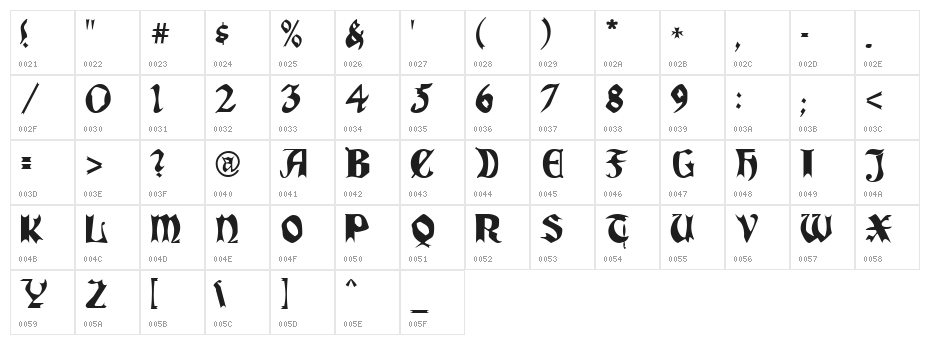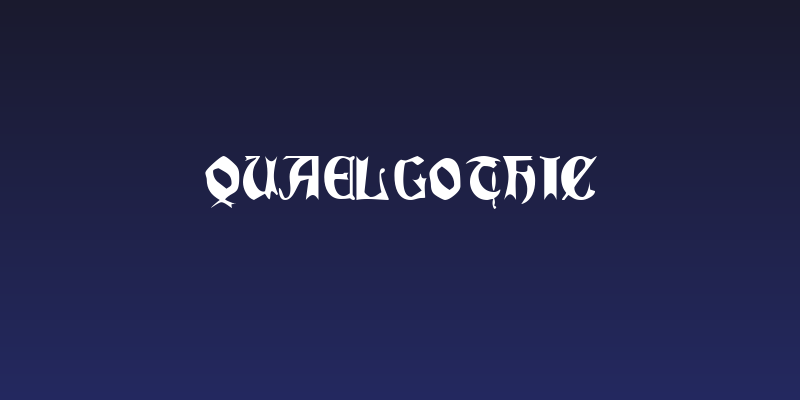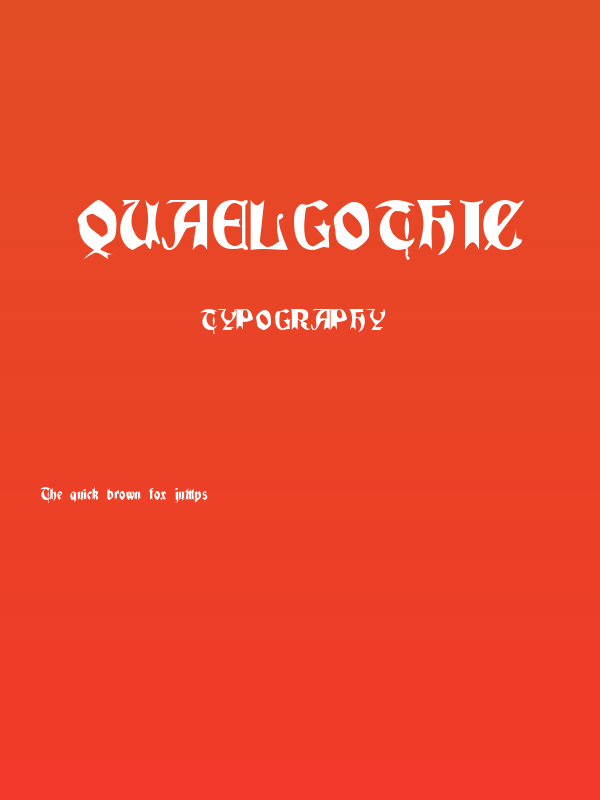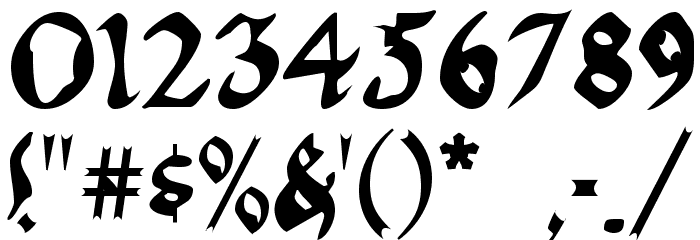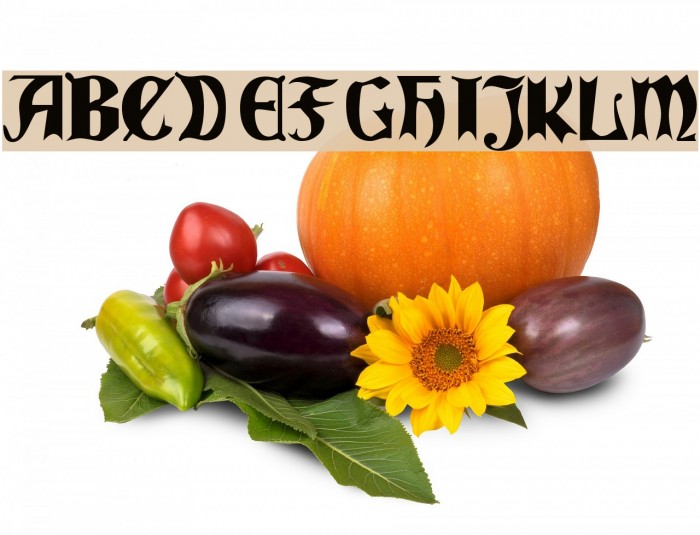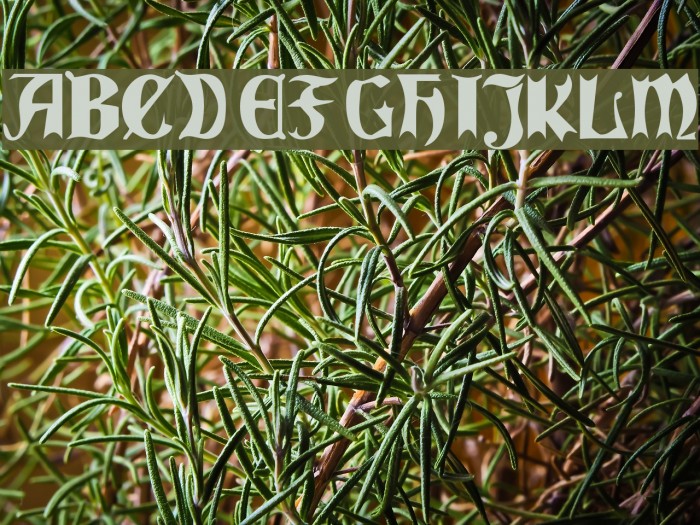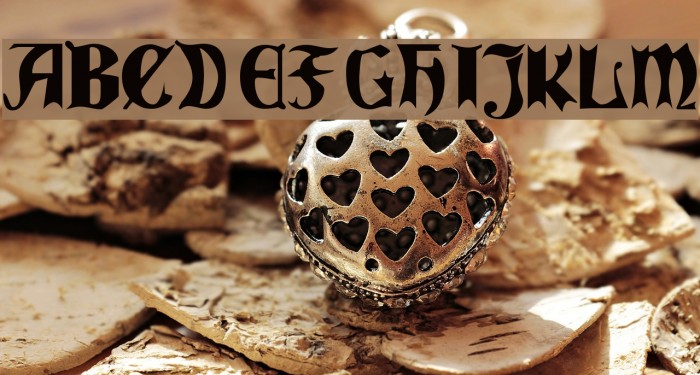
QuaelGothic Font
| Categorie | Gothic |
| Stile generale | Gothic, Traditional |
| Progetti proposti | Ideal for historical or fantasy-themed designs, book covers, posters, and branding that requires a traditional and strong aesthetic. |